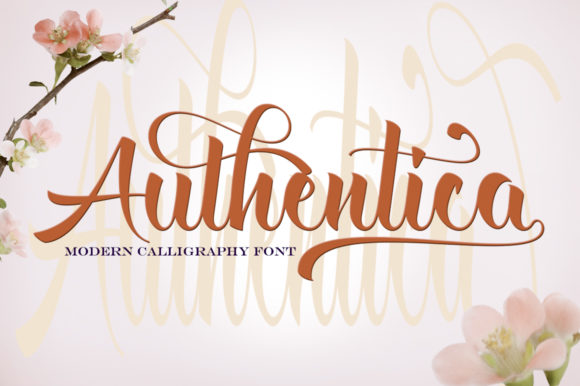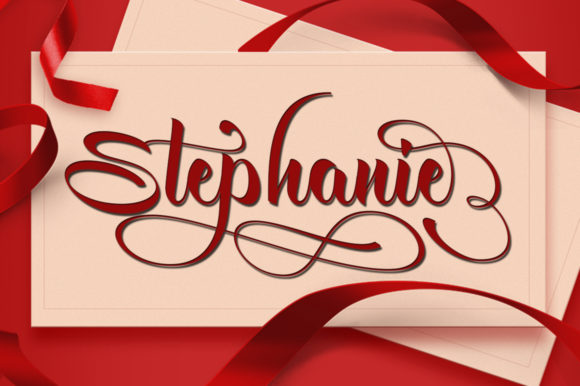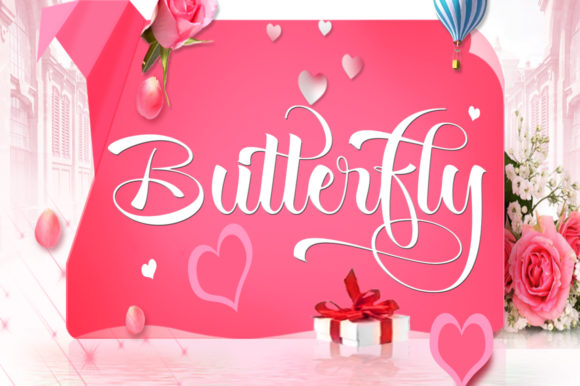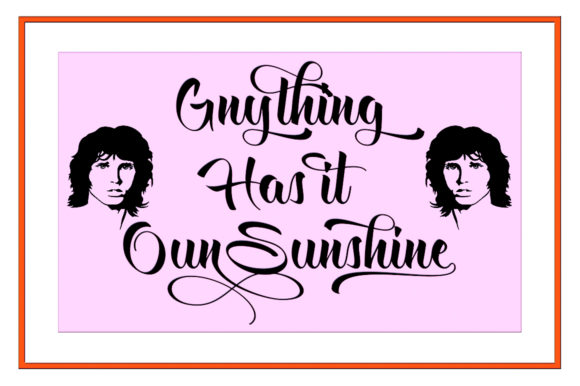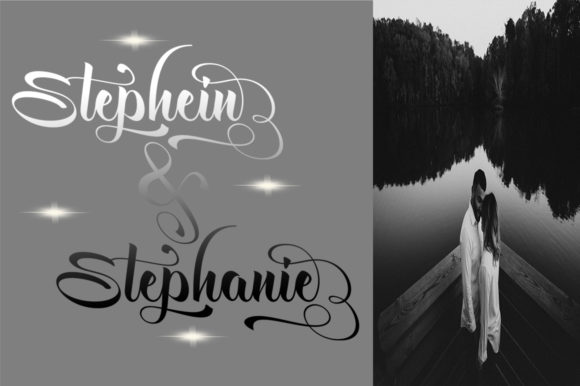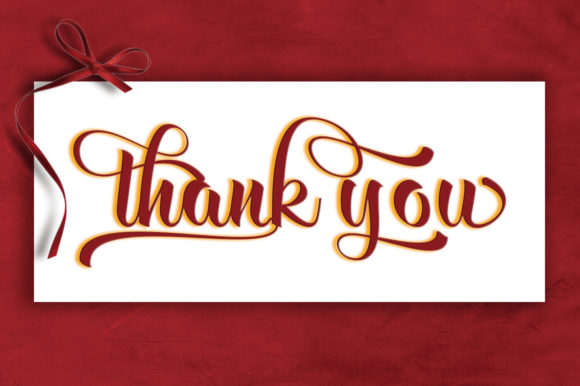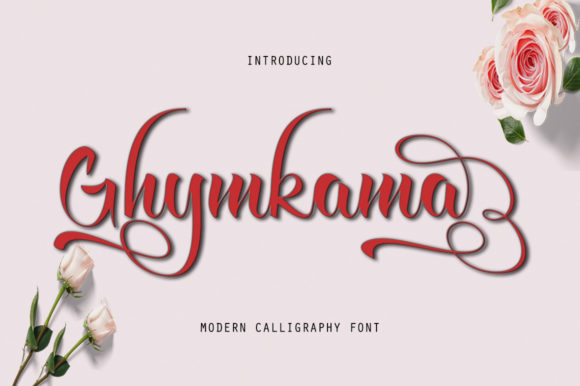
Ghymkama Slant Font: Elevate Your Designs with Elegance
Are you tired of using the same old fonts in your designs? Look no further! Ghymkama Slant is a new elegant font that is perfect for formal occasions. With its wide kerning and sleek design, this font is sure to take your designs to the next level.
What is Ghymkama Slant Font?
Ghymkama Slant is a modern, elegant font that is designed to make a statement. Its unique slant and wide kerning make it perfect for use in formal designs, such as wedding invitations, business cards, and luxury branding. The font is highly legible, making it easy to read and understand, even at small sizes.
Key Features of Ghymkama Slant Font
- Elegant Design: Ghymkama Slant has a sleek and sophisticated design that is perfect for formal occasions.
- Wide Kerning: The font has a wide kerning, which makes it easy to read and understand, even at small sizes.
- Highly Legible: The font is highly legible, making it perfect for use in body text and headings.
- Modern Look: The font has a modern look that is perfect for luxury branding and high-end designs.
Why Use Ghymkama Slant Font?
There are many reasons why you should use Ghymkama Slant font in your designs. Here are a few:
- Add Elegance to Your Designs: Ghymkama Slant font adds a touch of elegance to your designs, making them perfect for formal occasions.
- Stand Out from the Crowd: The font’s unique design and wide kerning make it stand out from the crowd, making your designs more memorable.
- Perfect for Luxury Branding: The font’s modern look and elegant design make it perfect for luxury branding and high-end designs.
How to Use Ghymkama Slant Font
Using Ghymkama Slant font is easy. Here are a few tips:
- Use it for Headings: The font is perfect for use in headings and titles, where you want to make a statement.
- Pair it with Other Fonts: You can pair Ghymkama Slant font with other fonts to create a unique and interesting design.
- Experiment with Different Sizes: The font is highly legible, even at small sizes, so don’t be afraid to experiment with different sizes.
If you’re a designer or crafter, here are a few tips for using Ghymkama Slant font:
- Use it for Wedding Invitations: The font is perfect for use in wedding invitations, where you want to make a statement.
- Use it for Business Cards: The font is also perfect for use in business cards, where you want to make a professional impression.
- Experiment with Different Colors: The font looks great in a variety of colors, so don’t be afraid to experiment.
Ghymkama Slant font is a new elegant font that is perfect for formal occasions. With its wide kerning and sleek design, this font is sure to take your designs to the next level. Whether you’re a designer or crafter, this font is a must-have in your collection.